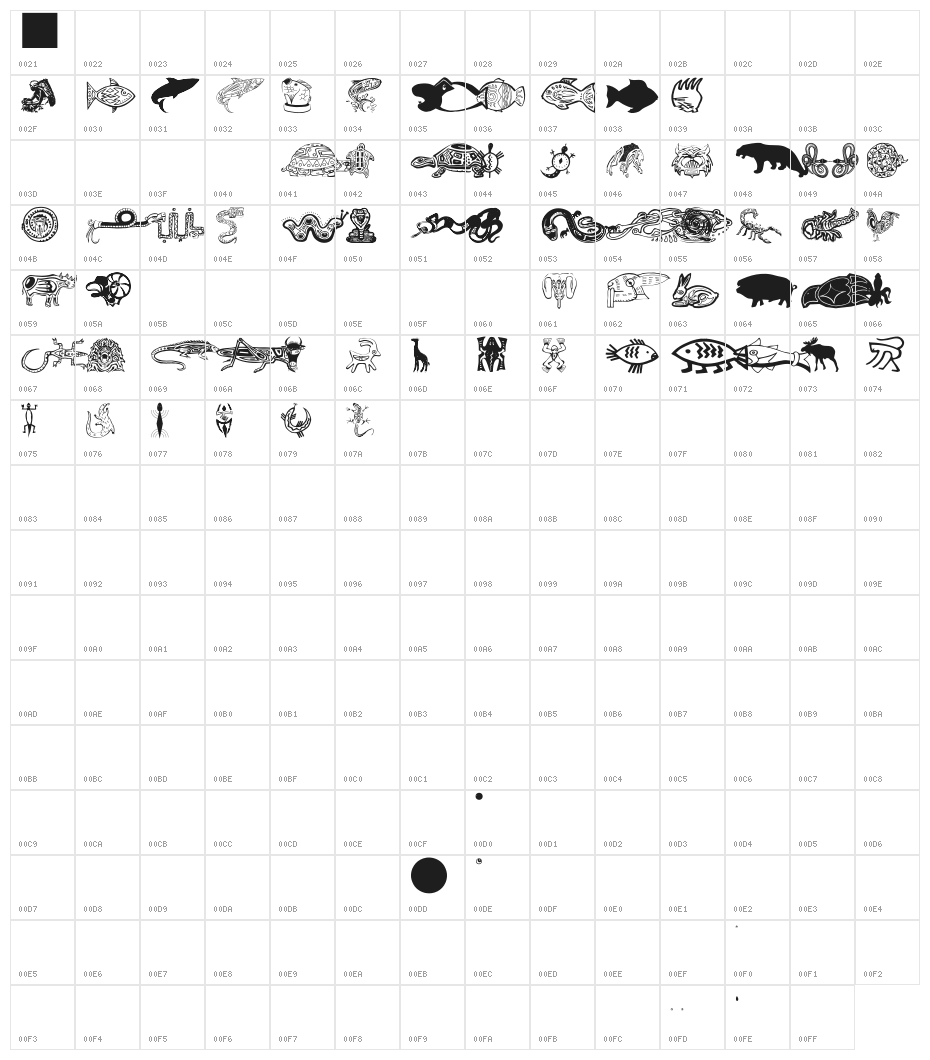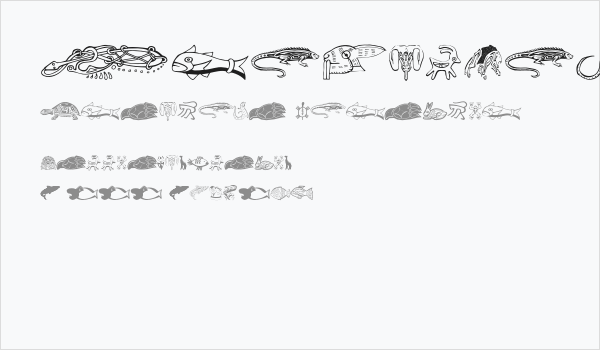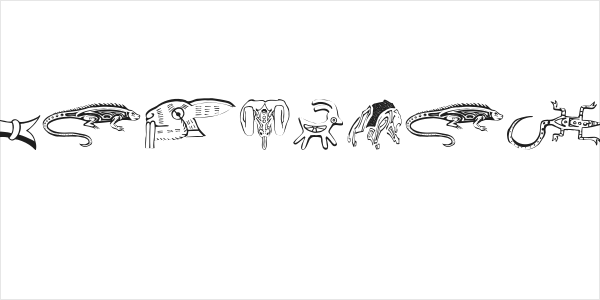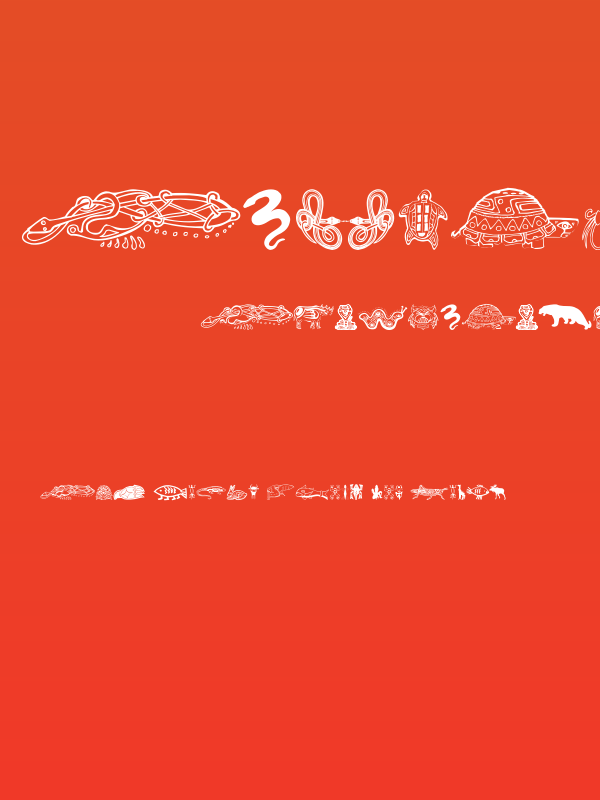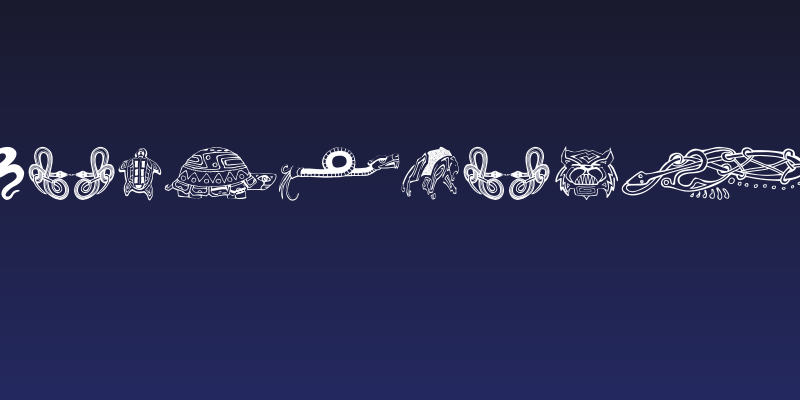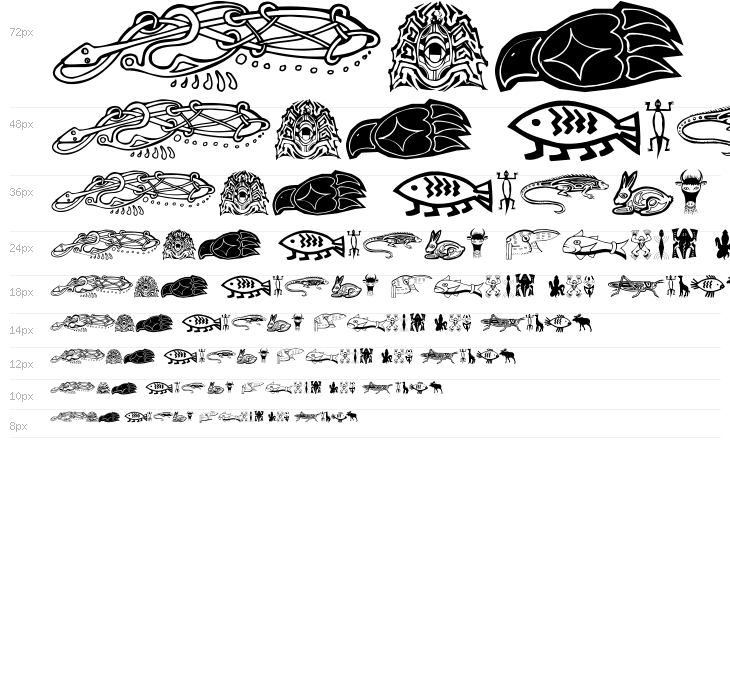
TribalFigTwo Font
TribalFigTwo Description
This collection features a series of tribal-inspired figures and symbols, each intricately designed to reflect a sense of cultural heritage and artistic expression. The characters include a variety of animals, mythical creatures, and abstract designs, each rendered with bold lines and detailed patterns. The style is reminiscent of traditional tribal art, with a focus on symmetry and geometric shapes. The figures are highly decorative, making them suitable for projects that require a touch of ethnic or cultural flair. The overall aesthetic is both striking and evocative, capturing the essence of tribal artistry.
| Use Case | Logos, Posters, Decorative Art |
| Proposed Projects | Ideal for cultural exhibitions, themed event decorations, artistic posters, and educational materials on tribal art. |